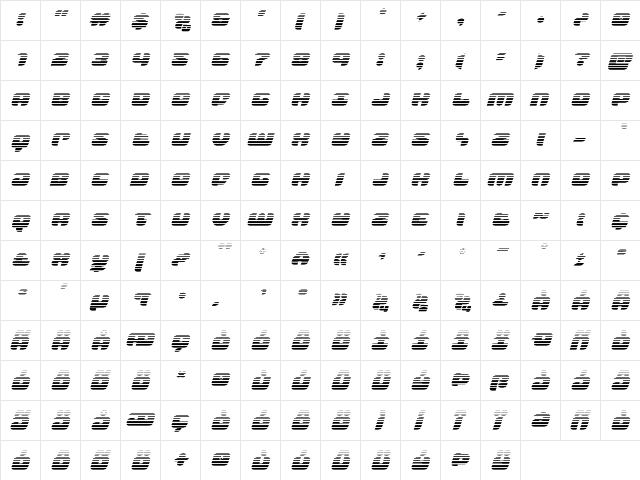
Groovy Smoothie Gradient Italic Italic
Design Context for Groovy Smoothie Gradient Italic Typeface
Groovy Smoothie Gradient Italic is a composed and adaptable typeface that performs quietly and consistently across a wide range of design contexts. The slanted form adds forward momentum and visual energy.
Pro Tip: Use Groovy Smoothie Gradient Italic for emphasis, pull quotes, and subheadings where its slanted energy can add rhythm to the layout.